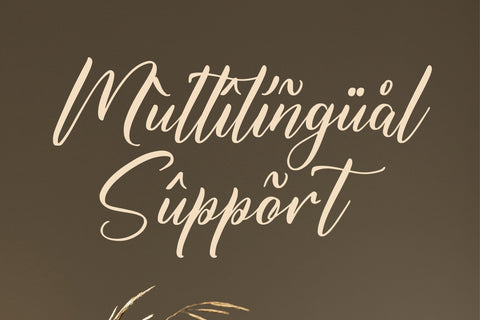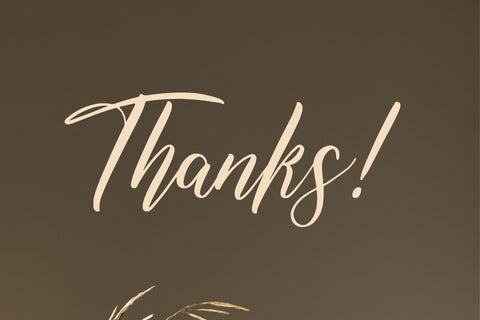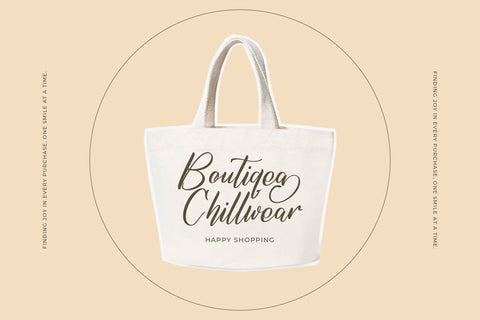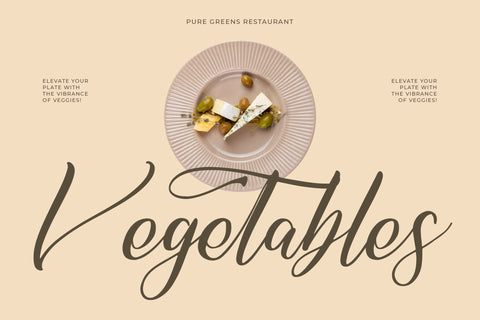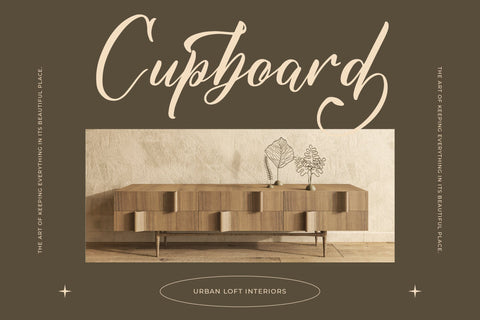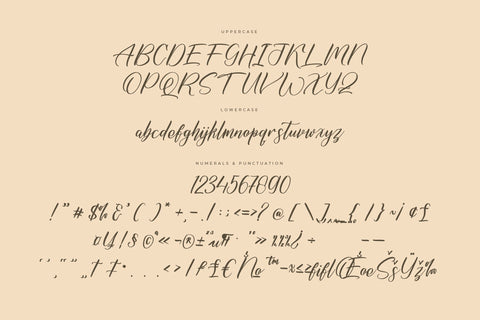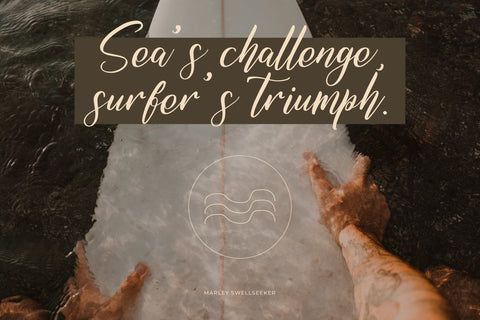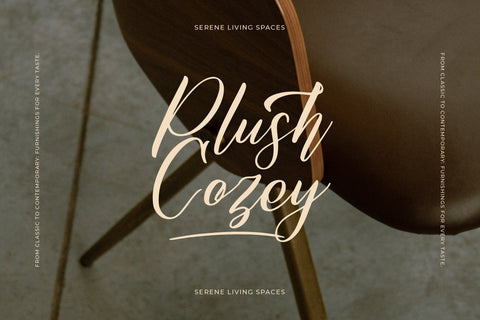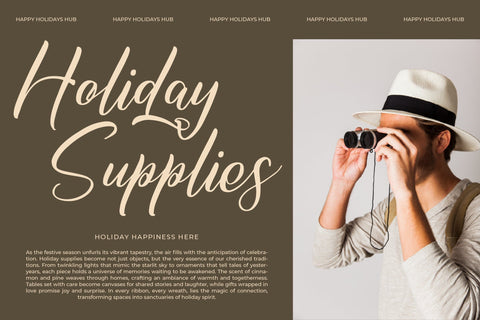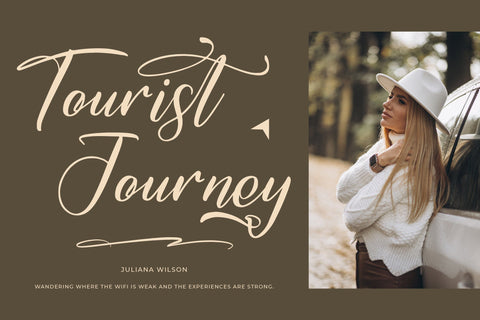
Amitesha Qowliran - Modern Handwritten Font
Amitesha Qowliran - Modern Handwritten Font , from Letterena, is a Luxury Script font, suitable for any projects such as: logos, branding projects, homeware designs, product packaging, mugs, quotes, posters, shopping bags, t-shirts, book covers, name card, invitation cards, greeting cards, label, photography, watermark, special events, and all your other luxury and beautiful projects that need a Luxury Script taste.